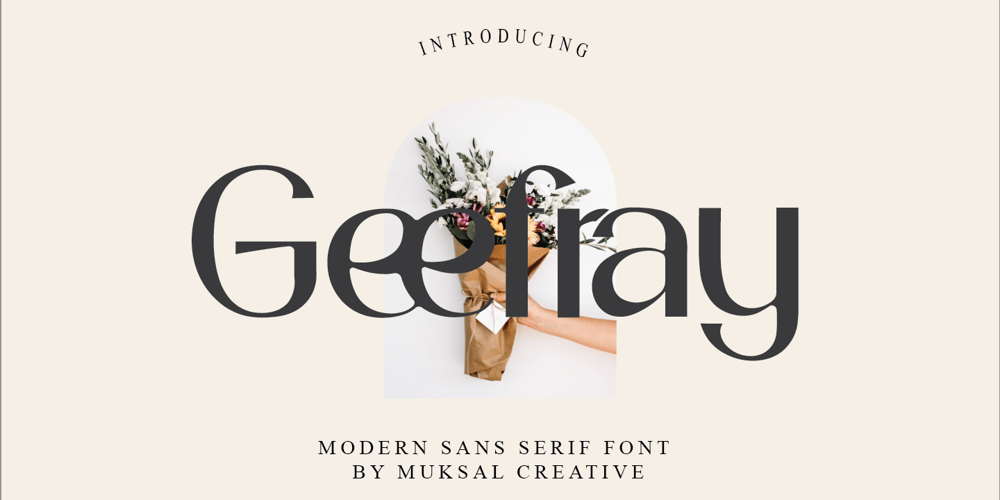
Geefray Font Family was designed by Muksalmina and published by Muksal Creatives. Geefray contains 1 styles and family package options. Geefray is a Modern Sans SerifA new Sans serif that we created special for branding needs, with extra ligature in unique shape add value of your brand. It so nice to leverage designer or product owner that need solutions to make their design look more stylish and modern.We prepared any ligatures, characters to help you create unlimited variations for your creative needs.